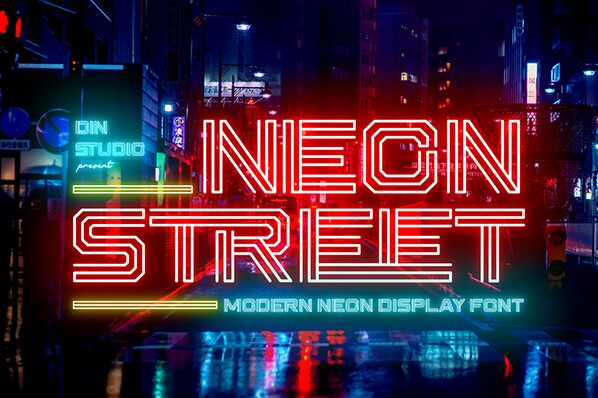
Neon Street font, designed by Ditatype, embodies a striking blend of futuristic aesthetics and vibrant neon influences. This bold typeface features a captivating expanded structure that commands attention, making it perfect for projects that seek to evoke energy and modernity. The sleek lines and pronounced forms create a visual rhythm that is both dynamic and engaging.
Ideal for eye-catching headlines, event posters, or digital media aimed at youthful audiences, Neon Street effortlessly enhances the excitement of any design context. Its unique character allows it to shine in environments where bold statements are key, from nightlife promotions to tech-savvy branding. Experience the allure of this standout font as it brings a lively ambiance to your creative endeavors.